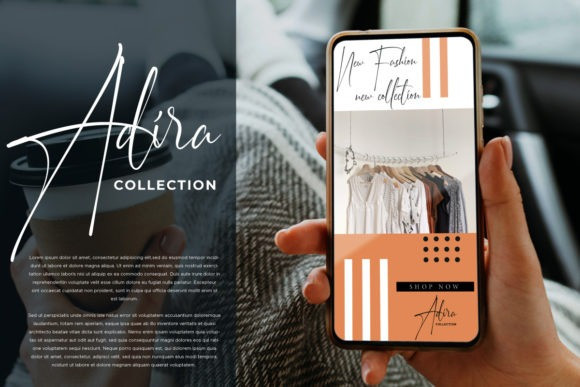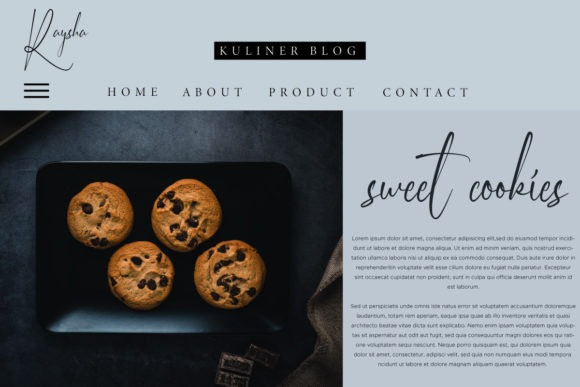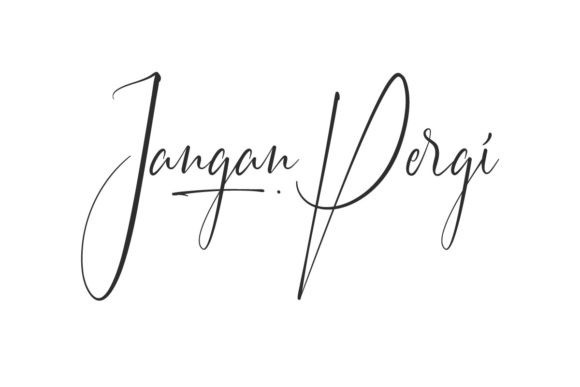
Jangan Pergi Font
Jangan Pergi Script Font is a free-flowing handwritten font, described by a sweet touch, ideal for your newest projects. This font is PUA encoded which means you can access all of the glyphs and swashes with ease!